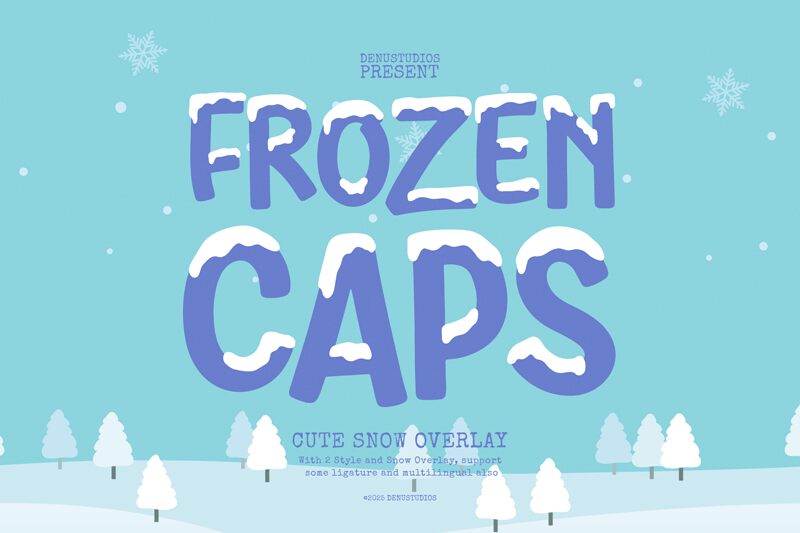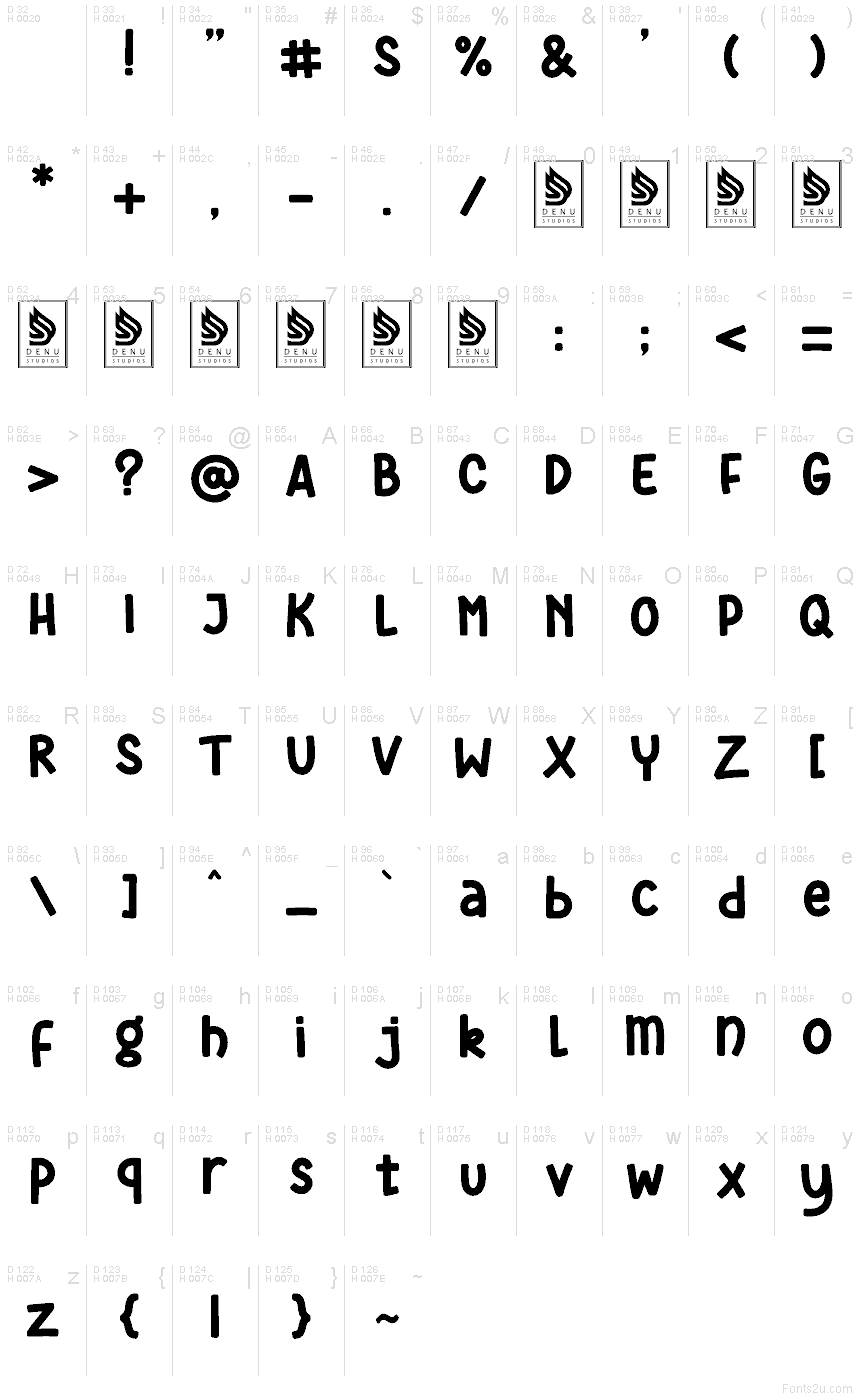
Frozen Caps Solid font by Denustudios is a free Christmas holiday typeface that feels like it was doodled on a frosty window. The bold, rounded letters have a chunky, snowball-like rhythm that’s playful without being messy, with soft curves that read clearly even at smaller sizes. Its hand-drawn, slightly wobbly feel gives headlines a cozy, homemade warmth that suits festive projects that need personality, not perfection.
Using Frozen Caps Solid, this free font shines on Christmas cards, party invitations, kids’ crafts, classroom printables, gift tags, festive banners, and seasonal social media graphics. The generous weight makes it stand out on busy backgrounds and textured paper. Pair it with a clean, simple sans serif for body text and let Frozen Caps Solid handle your main titles at larger sizes for maximum holiday charm.